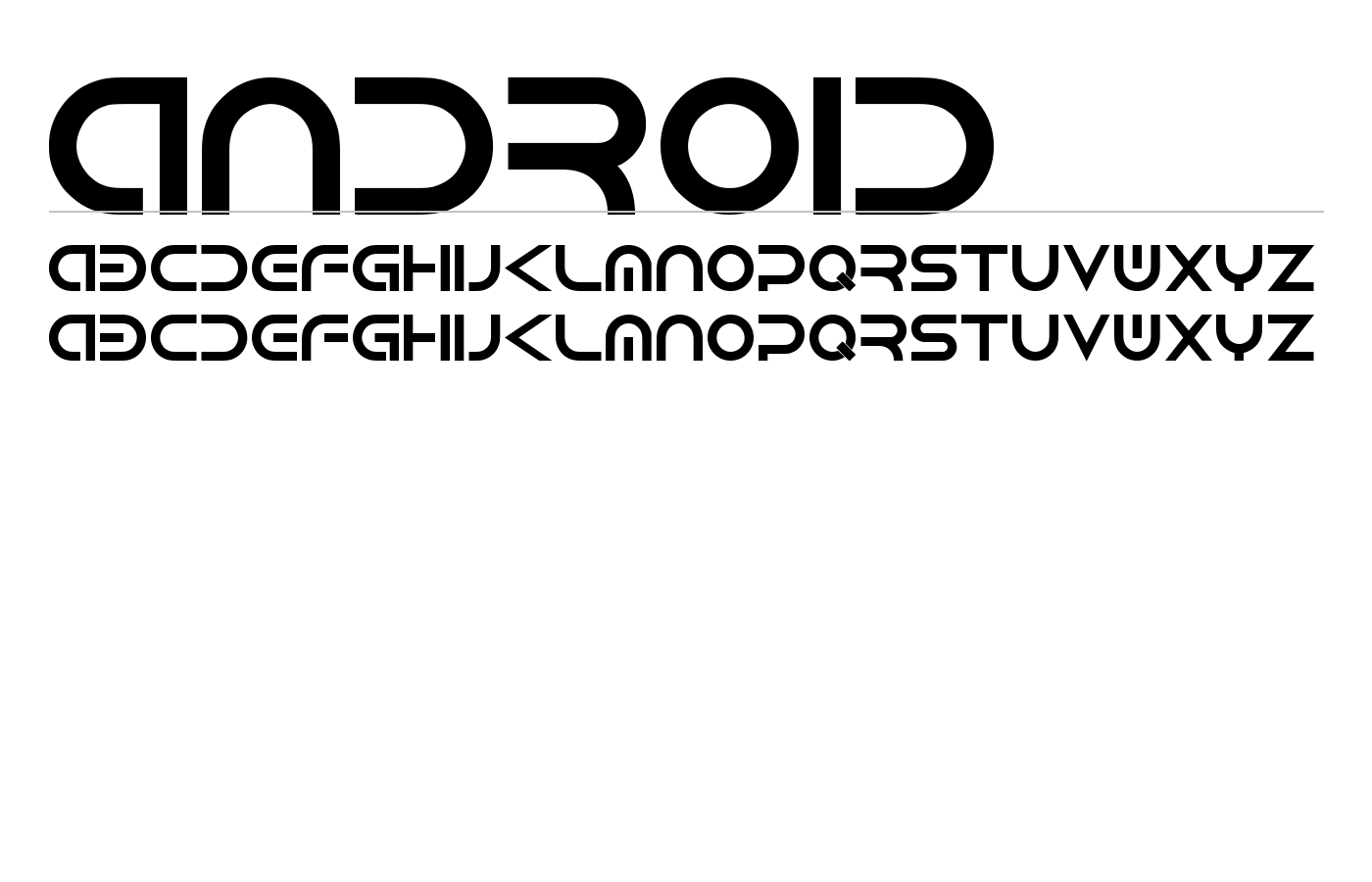
Android Font is a bold, geometric sans serif typeface with a futuristic and tech-inspired style. Its strong, blocky letterforms feature a high x-height and unique rounded corners combined with sharp angles, creating a modern and dynamic look well suited for branding, headlines, and digital interfaces where a sleek, innovative feel is desired.
Android Font
About Android Font